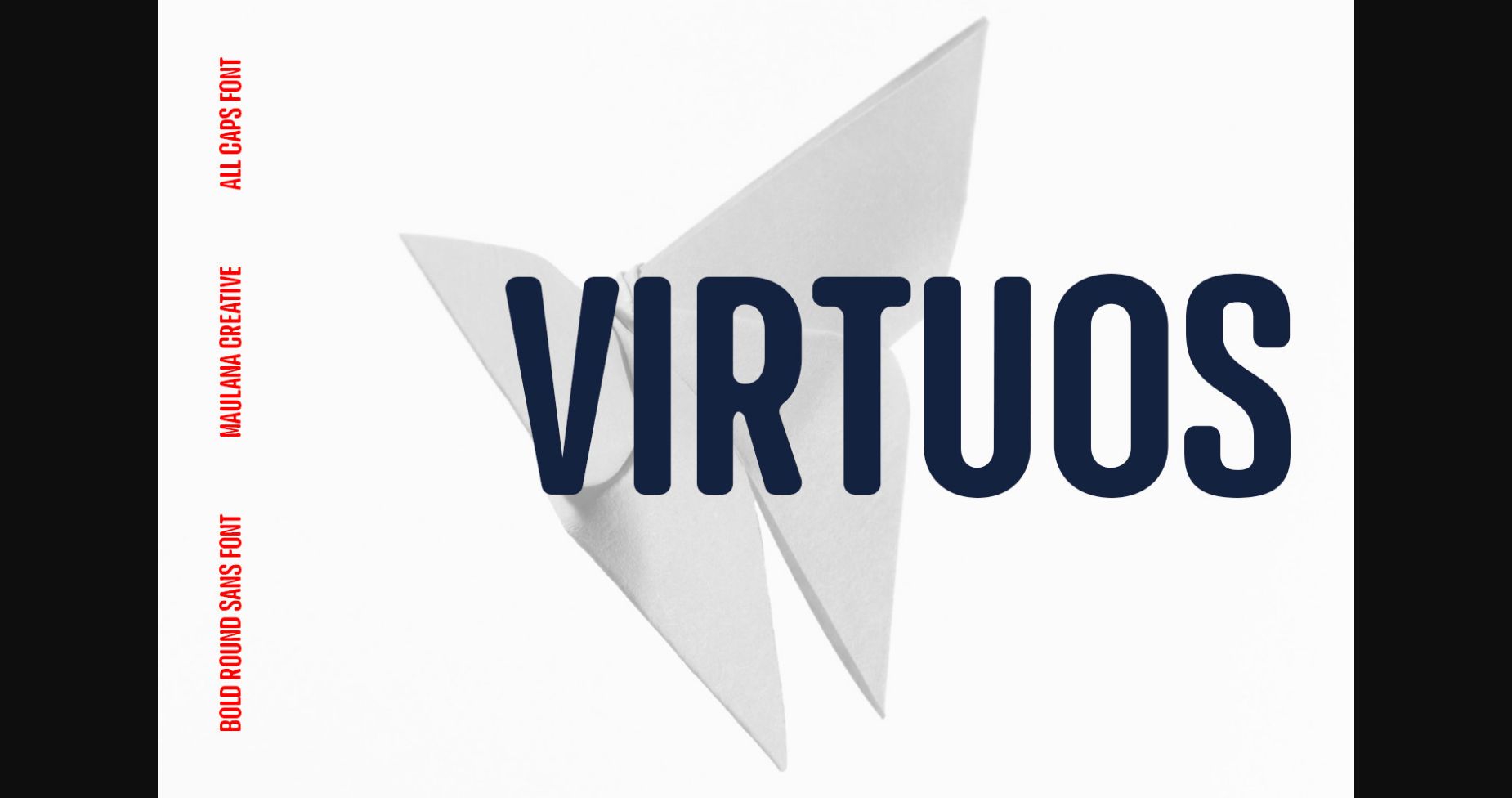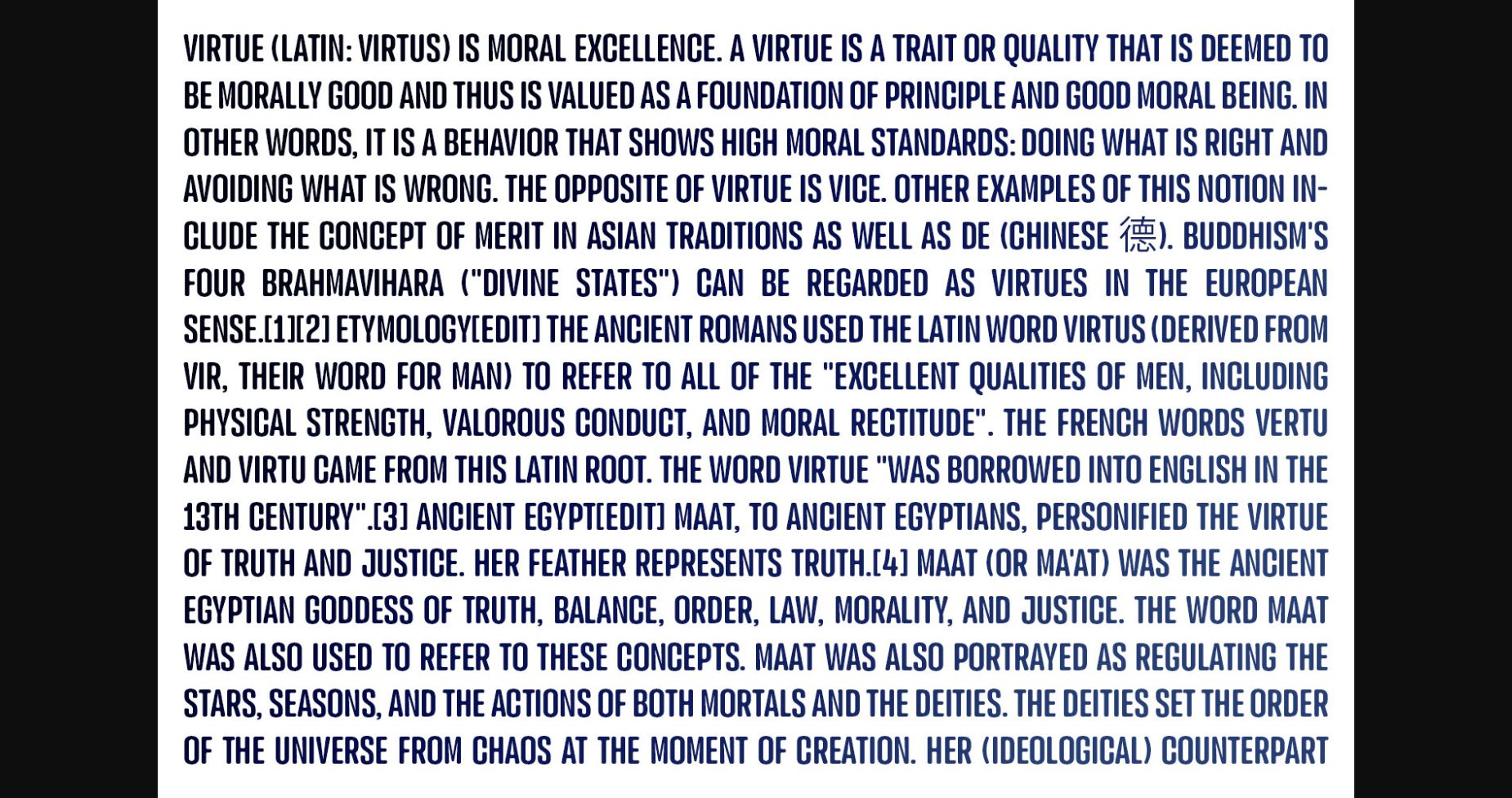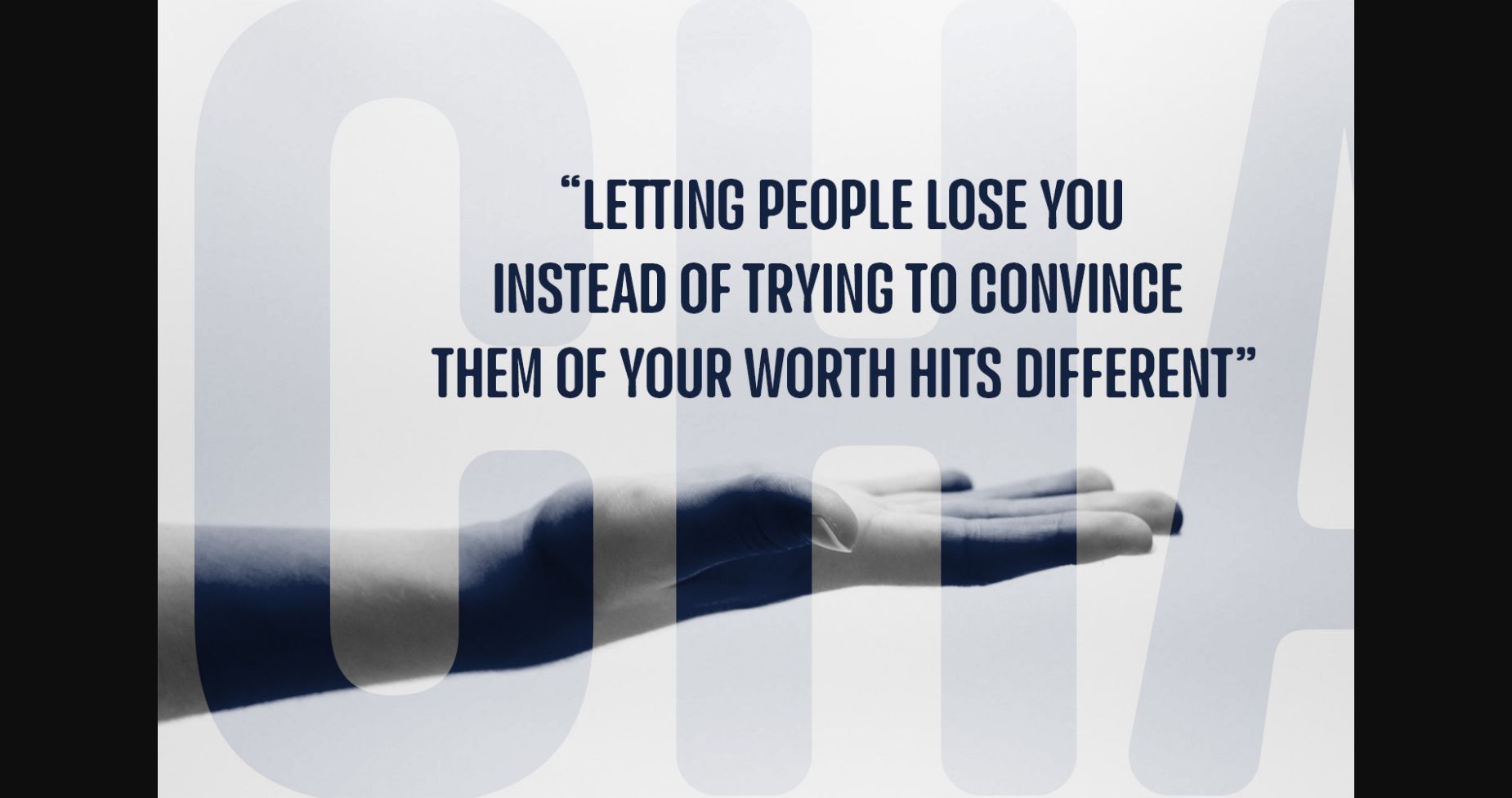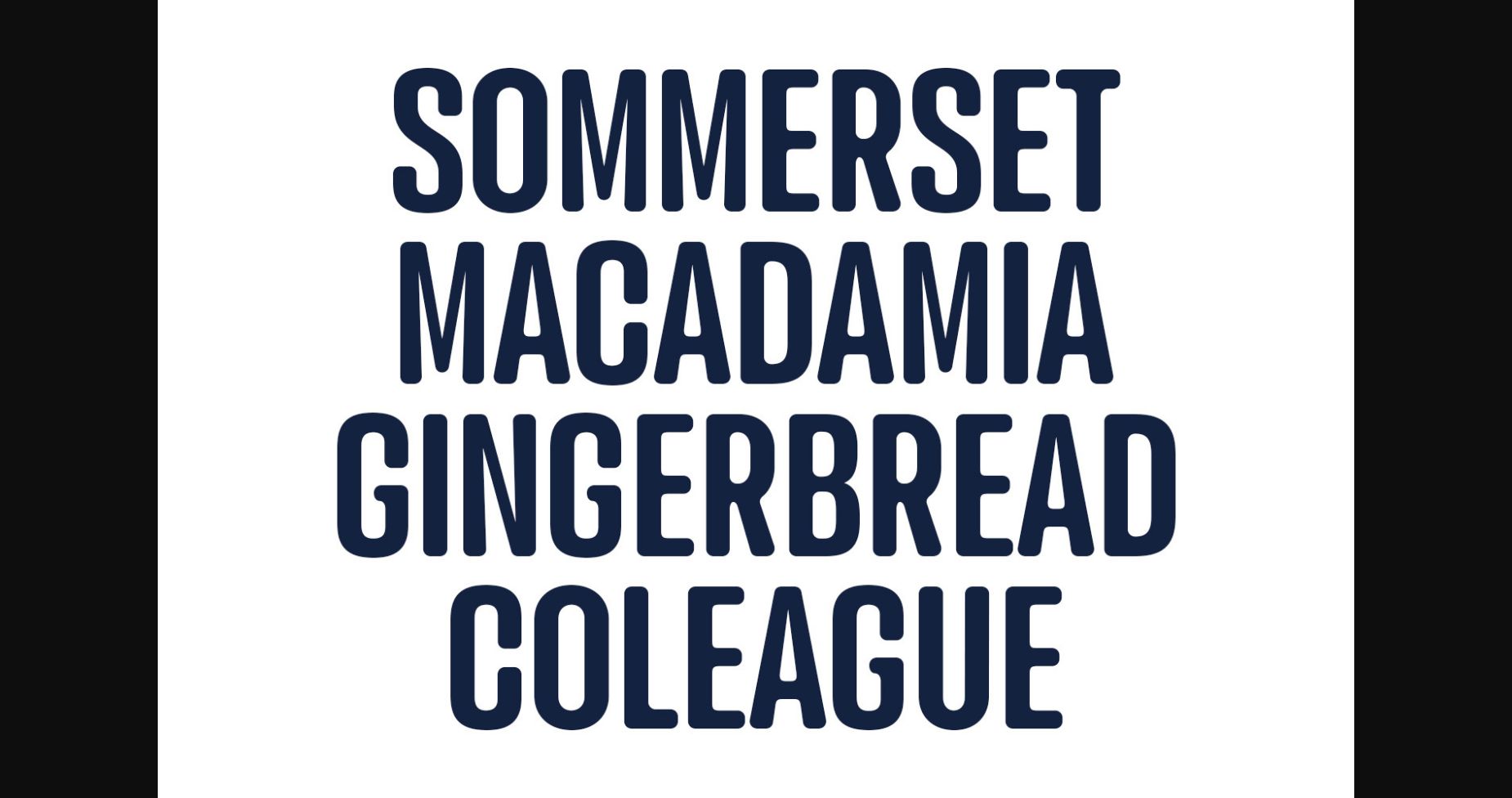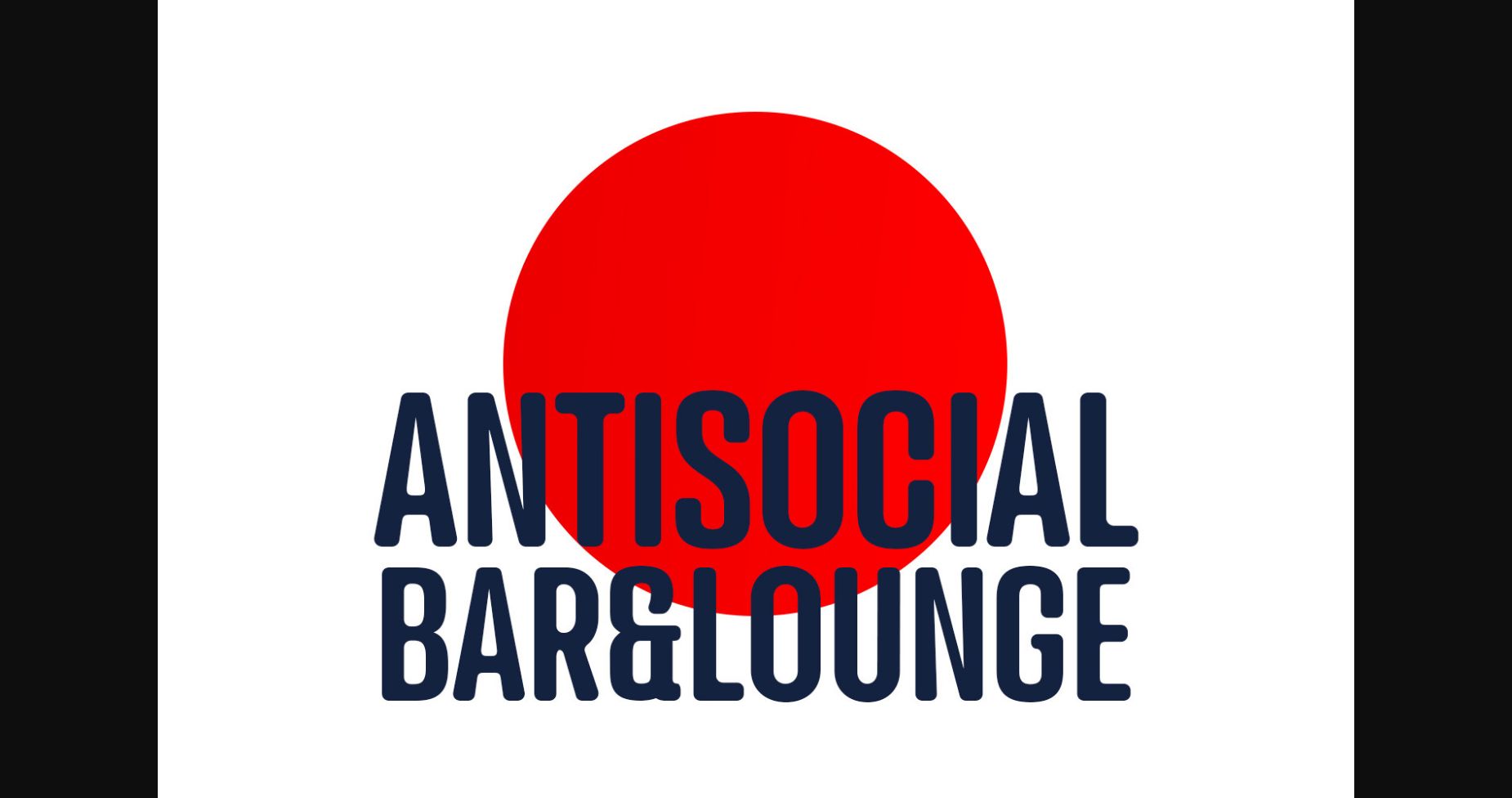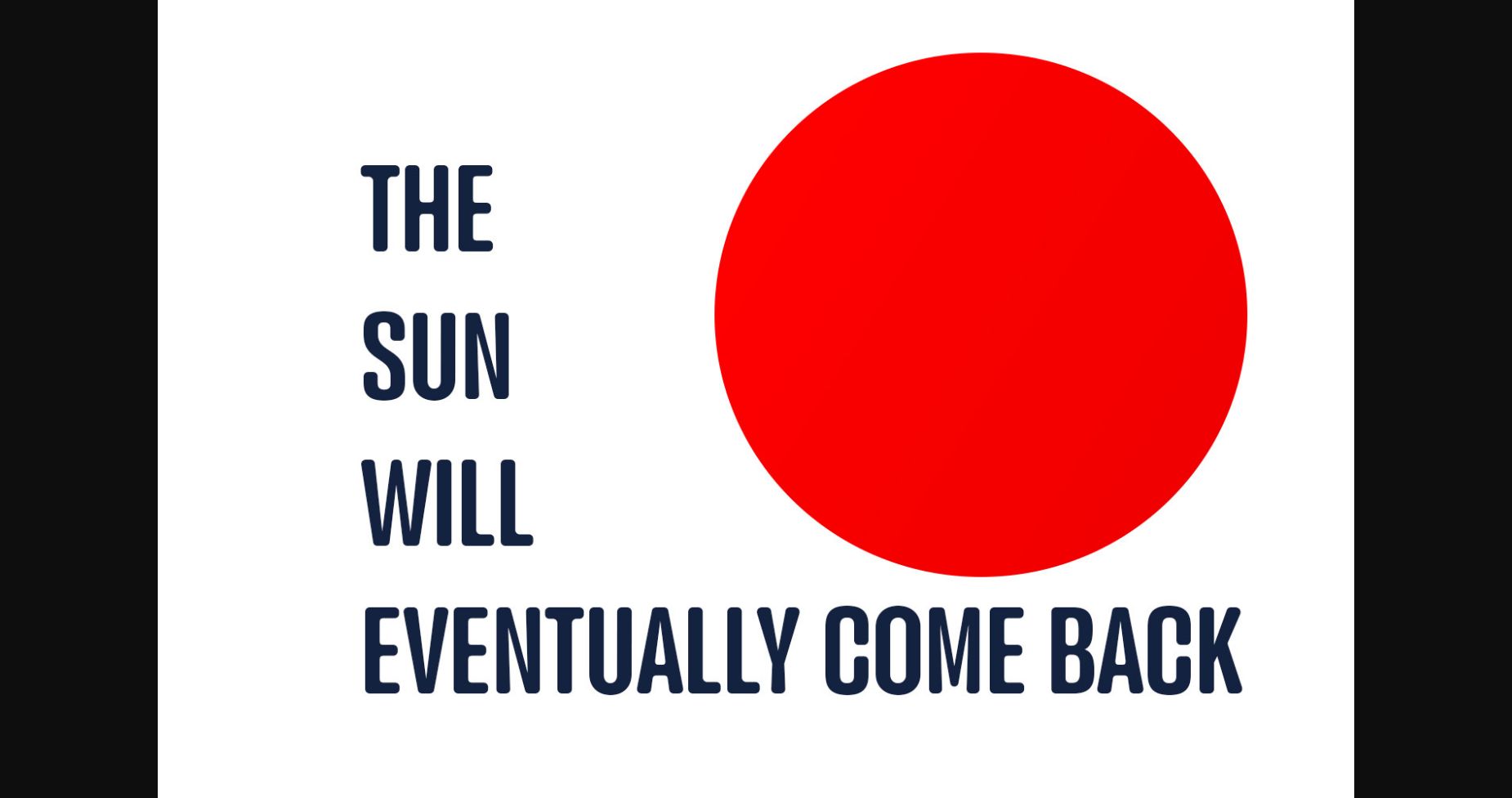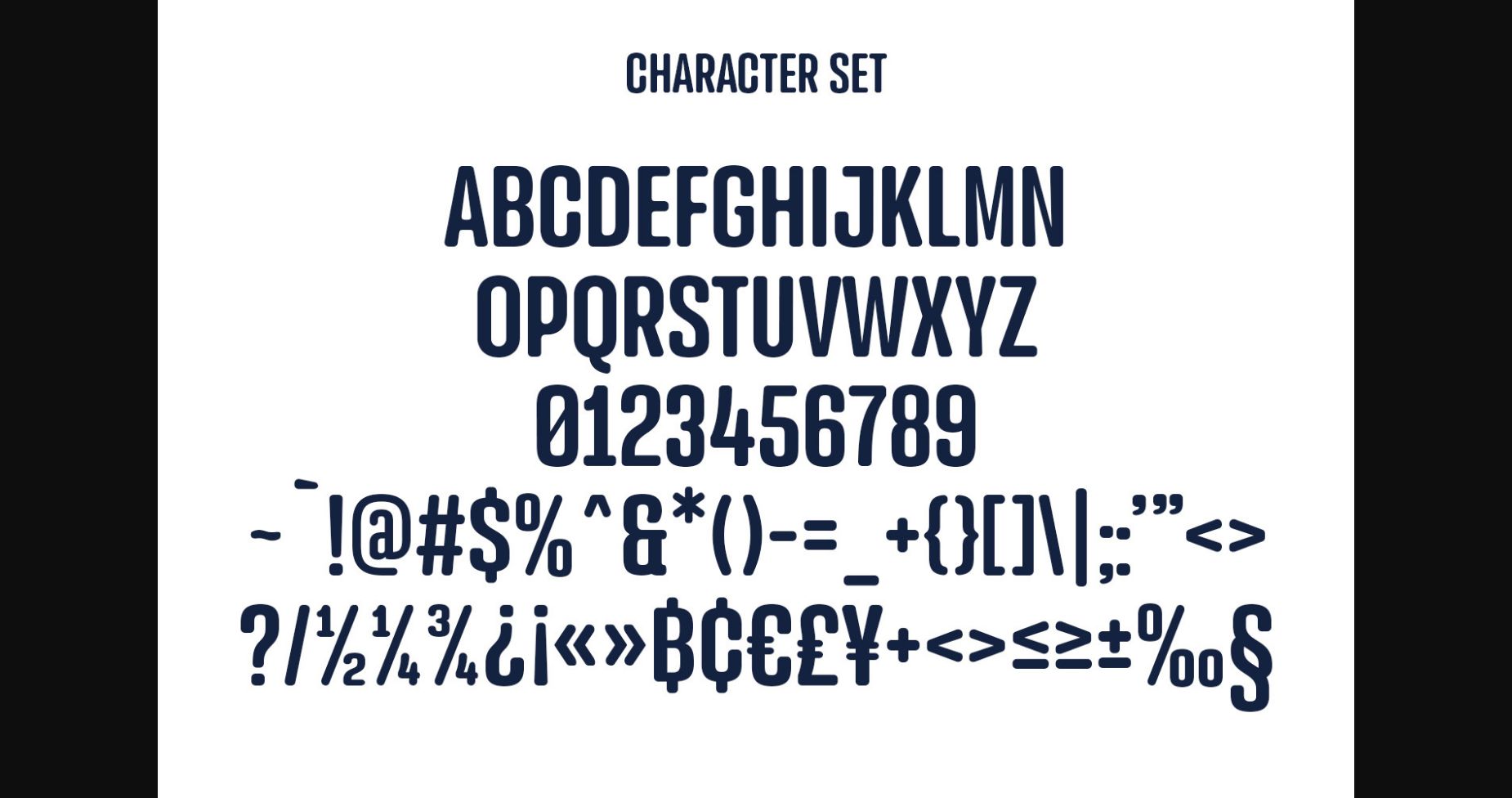
Virtuos Font
About Virtuos Font
Virtuos is a stunning and commanding sans-serif typeface that exudes strength and confidence. Its bold, geometric letters convey a sense of power and stability, making it ideal for impactful headlines, logos, and branding materials. Its commanding and striking appearance adds a touch of authority to any design project.